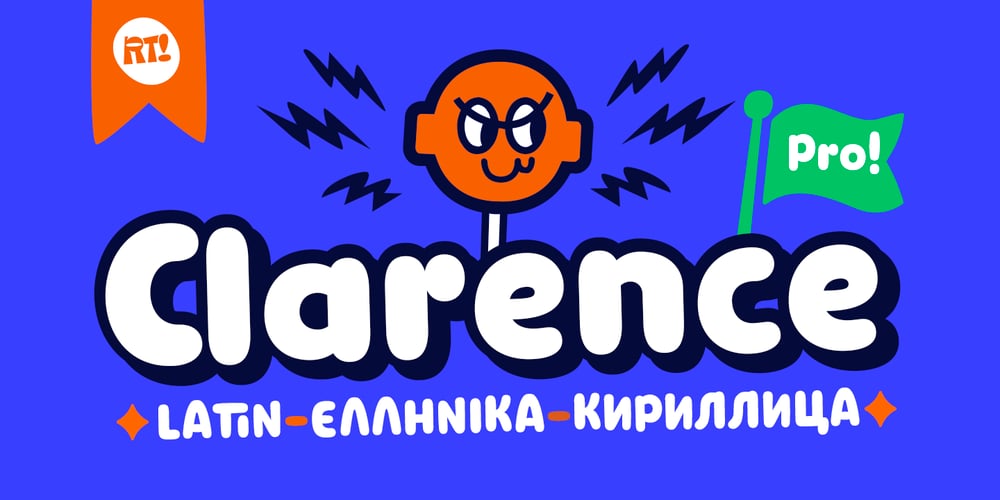
Clarence Pro
Clarence Pro font
Clarence Pro Font Family was designed by Rodrigo Araya Salas, Franco Jonas Hernández and published by RodrigoTypo. Clarence Pro contains 8 styles and family package options. Clarence pro, is a version with many alternatives such as ligatures and alternatives in letters, it also contains the Greek and Cyrillic alphabet, especially for children and teenagers!